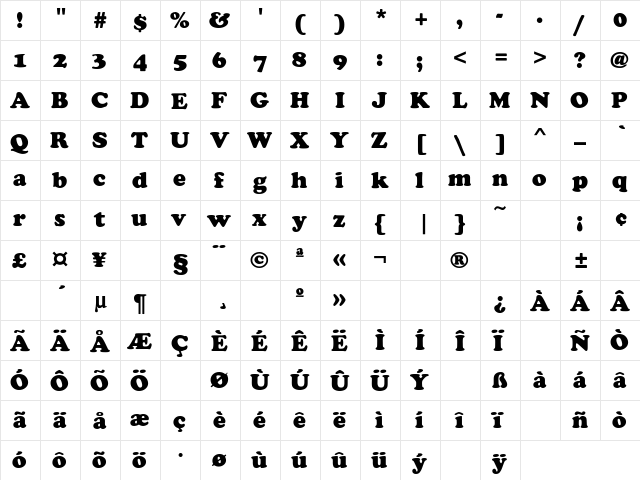
Cooper Regular
Design Context for Cooper Typeface
Cooper is a composed and adaptable typeface that performs quietly and consistently across a wide range of design contexts.
Pro Tip: Pair Cooper with a font of contrasting weight or personality to build a more expressive typographic hierarchy.